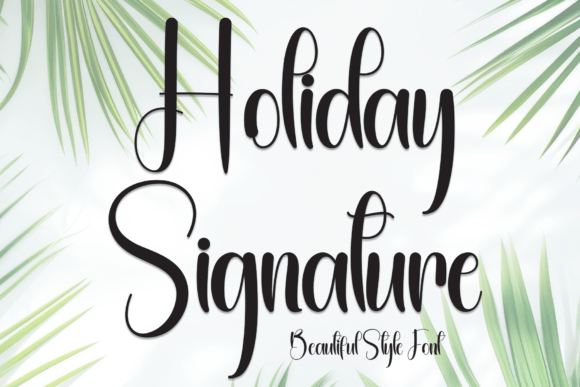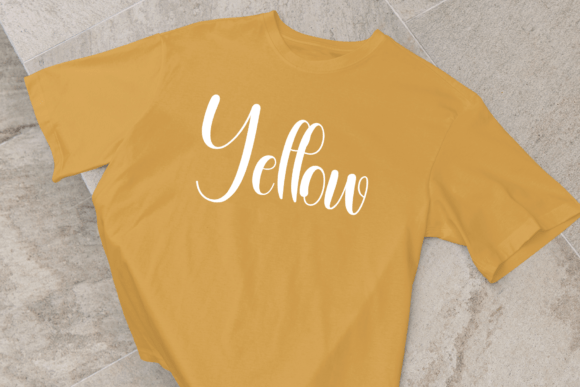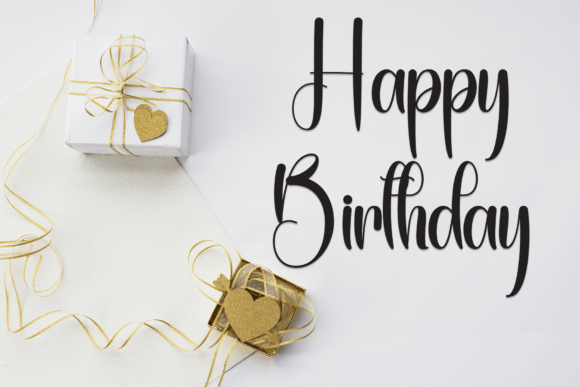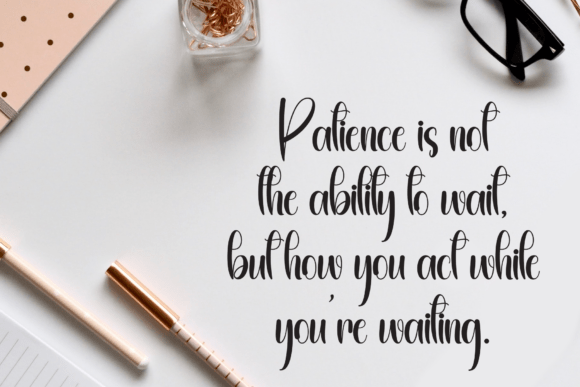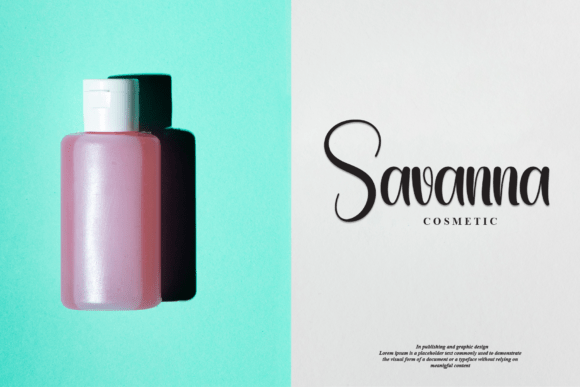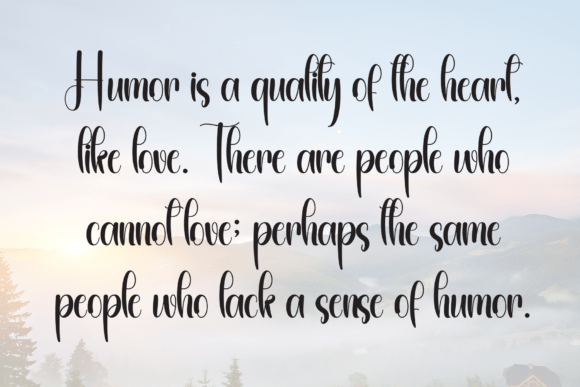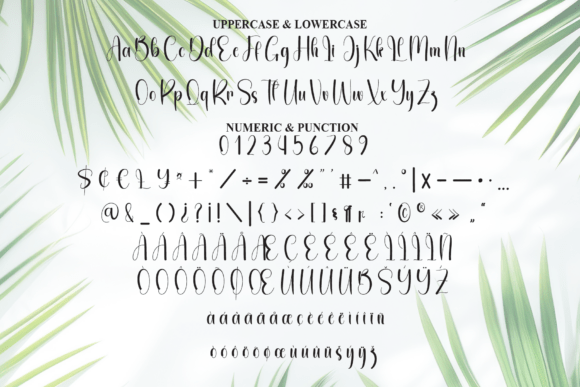
The Perfect Font for Your Next Big Celebration
It’s the most wonderful time of the year – or should I say, the most wonderful time of every year? As designers, we’re always on the lookout for that special something that captures the essence of our brand’s personality. And let’s be honest, who doesn’t love the feeling of creating something magical for their clients or loved ones?
Enter the Holiday Signature Font, a stunning display font that embodies the perfect blend of whimsy and sophistication. This font is designed to transport you to a tropical paradise, where the rhythm of hand-drawn cursive loops and elongated stems will make your designs stand out in the crowd. Whether you’re working on a travel agency identity, a boutique resort signage, or a personalized greeting card, the Holiday Signature Font is the perfect choice to add a touch of festive flair to your projects.
Holiday Signature Font Key Features
- Font Family: A custom-designed font family with 6 unique styles (Regular, Italic, Bold, Bold Italic, Outline, and Fill) to create a festive and elegant look.
- Unique Characteristics: Features a unique blend of modern and traditional elements, with intricate details and ornaments to create a holiday-themed signature font.
Holiday Signature Font Review
Overall, I think the Holiday Signature Font is a lovely addition to any holiday-themed project. ✨ The font’s elegant and cursive design makes it perfect for creating festive invitations, cards, or even packaging.
- ✨ Elegant and cursive design, great for holiday-themed projects.
- ✨ Wide range of characters, including punctuation and symbols.
- ✨ Supports various languages, making it a great option for international projects.
- ⚠️ Limited font sizes and styles available, which may limit its versatility.
- ⚠️ May not be suitable for large blocks of text, as it can become difficult to read.
- ⚠️ Some characters may not display correctly in certain software or operating systems.
Overall, I would recommend the Holiday Signature Font for projects that require a touch of elegance and festivity. While it may have some limitations, it’s a great option for creating unique and eye-catching holiday designs.
The Holiday Signature Font is perfect for:
- Creating festive holiday invitations and cards.
- Designing holiday-themed social media graphics.
- Adding a touch of holiday cheer to your website and blog.
For optimal results, use the font in conjunction with other festive elements, such as holly, snowflakes, or candy canes.